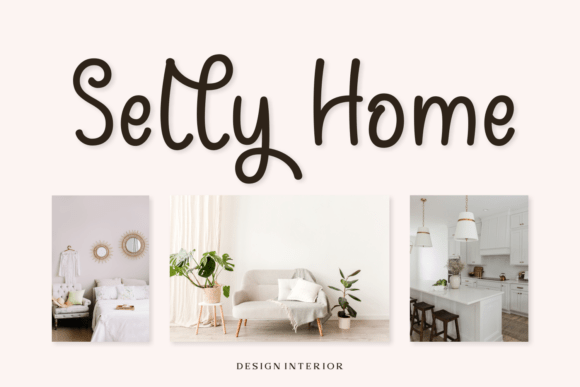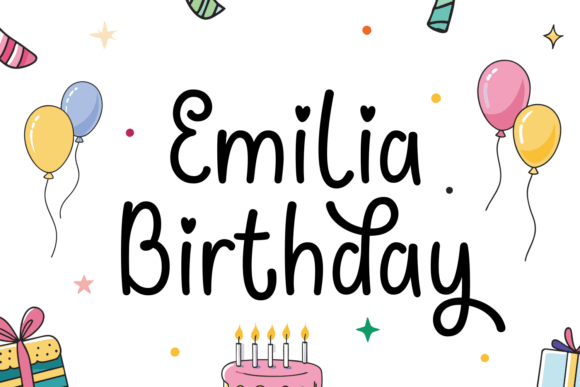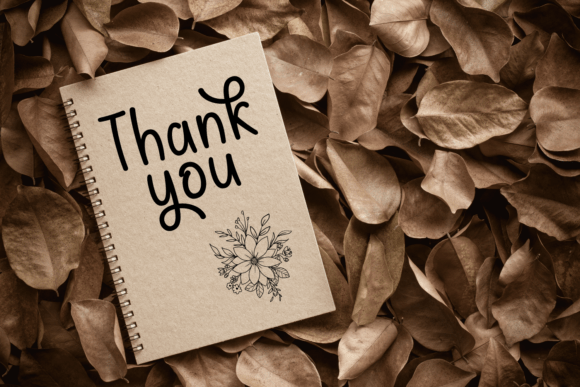
Genghis Font: A Delightful Handwritten Font for Creative Projects
Are you looking for a font that can add a touch of whimsy and charm to your designs? Look no further than the Genghis font. This delightful handwritten font is perfect for a variety of creative projects, from wedding invitations and greeting cards to branding and social media posts.
The Characteristics of Genghis Font
The Genghis font features playful letterforms with subtle curves, occasional heart accents, and flowing strokes. These characteristics give the font a charming and whimsical feel that’s sure to capture the attention of your audience. The hand-crafted style of the font brings warmth and personality to any design, making it perfect for projects that require a personal touch.
Versatility of Genghis Font
One of the best things about the Genghis font is its versatility. Despite its unique and playful style, the font’s simplicity ensures that it can be used across a variety of projects. Whether you’re designing a wedding invitation, a social media post, or a brand logo, the Genghis font is sure to fit right in.
Floral Accents and Organic Beauty
The Genghis font also features beautiful floral accents that enhance its soft and inviting character. These accents add a touch of organic beauty to any design, making it perfect for projects that require a natural and effortless look. The floral accents also help to set the Genghis font apart from other handwritten fonts, giving it a unique and distinctive style.
The Genghis font is perfect for a variety of creative projects, including:
- Wedding invitations: The Genghis font’s whimsical and romantic style makes it perfect for wedding invitations and other wedding-related projects.
- Greeting cards: The font’s playful and charming style makes it perfect for greeting cards and other paper crafts.
- Branding: The Genghis font’s unique and distinctive style makes it perfect for branding and logo design.
- Social media posts: The font’s simplicity and versatility make it perfect for social media posts and other digital projects.
Why Designers and Crafters Love Genghis Font
Designers and crafters love the Genghis font for a variety of reasons. Here are just a few:
- Unique and distinctive style: The Genghis font’s unique and distinctive style sets it apart from other handwritten fonts.
- Versatility: The font’s simplicity and versatility make it perfect for a variety of projects.
- Easy to read: Despite its playful style, the Genghis font is easy to read and understand.
- Customizable: The font’s hand-crafted style makes it easy to customize and modify to fit your project’s needs.
Tips for Using Genghis Font
Here are a few tips for using the Genghis font in your projects:
- Use it sparingly: The Genghis font’s playful style can be overwhelming if used too much. Use it sparingly to add a touch of whimsy to your design.
- Pair it with other fonts: The Genghis font pairs well with other fonts, especially serif and sans-serif fonts.
- Experiment with colors: The Genghis font looks great in a variety of colors, from bright and bold to soft and pastel.
The Genghis font is a delightful handwritten font that’s perfect for a variety of creative projects. Its playful letterforms, subtle curves, and flowing strokes make it a charming and whimsical addition to any design. With its versatility, simplicity, and unique style, the Genghis font is sure to become a favorite among designers and crafters.
Whether you’re designing a wedding invitation, a social media post, or a brand logo, the Genghis font is sure to bring warmth and personality to your project. So why not give it a try and see the difference it can make?